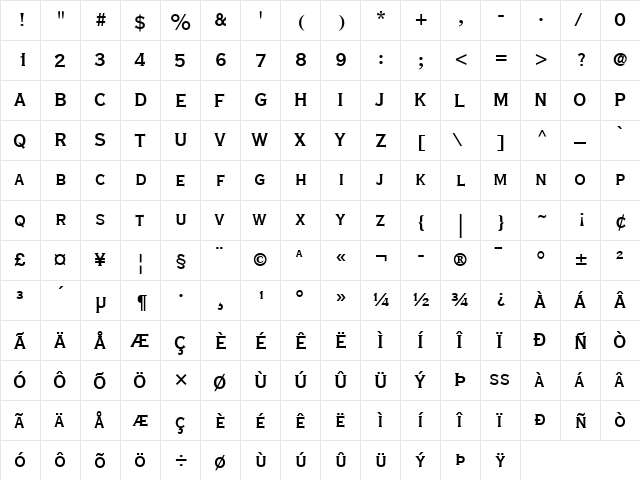
Copperplate LT 30bc Regular Font Preview
Copperplate LT 30bc Regular
Copperplate LT 30bc Regular Font Details
Design Context for Copperplate LT 30bc Typeface
Copperplate LT 30bc takes a measured approach to typography — its balanced proportions and neutral character make it a reliable workhorse for both digital and print work. Its slender proportions lend an understated elegance to any composition.